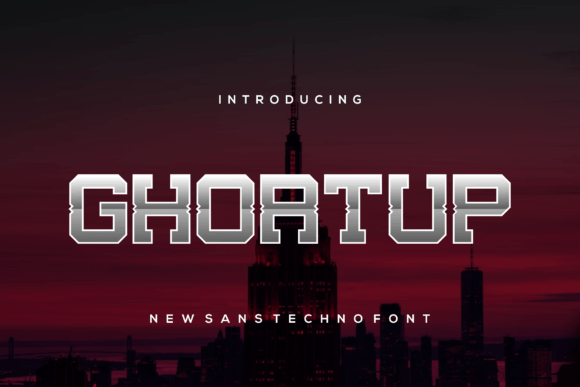
Have you ever stared at a blank canvas, trying to come up with the perfect font to bring your design to life? That’s exactly what happened to us when we created the Ghortup Font. We wanted a font that was both bold and authentic, something that would make our designs stand out in a crowded space.
After months of perfecting the Ghortup Font, we’re excited to share it with you. This slab serif font is perfect for any branding project, from logos to t-shirt printing, and even esports graphics. Its versatility and unique style make it a valuable addition to any designer’s toolkit.
Whether you’re a seasoned pro or just starting out, the Ghortup Font is sure to inspire your next design project. With its wide range of applications, you’ll be able to take your designs to the next level and make a lasting impression on your audience.
Ghortup Font Key Features
- Font Family: Ghortup Font is a sans-serif font family, designed to provide a clean and modern look for digital and print media.
- Character Set: The font includes a comprehensive character set, covering Latin, Cyrillic, and Greek alphabets, as well as various punctuation and symbol glyphs.
- Unique Characteristics: Ghortup Font features a distinctive geometric shape and subtle rounded edges, giving it a friendly and approachable feel.
- Font Weight and Style: The font family includes multiple weights, from Light to Bold, and various styles, such as Regular, Italic, and Oblique, offering flexibility for designers to achieve the desired visual effect.
Ghortup Font Review
Ghortup Font is an interesting choice for any design project. There are a few things that work well:
- ✨ Unique aesthetic: Ghortup Font offers a distinct and eye-catching design that can help your project stand out.
- ✨ Versatile: This font can be used in a variety of contexts, from digital displays to printed materials, making it a versatile choice.
- ✨ Customizable: The font allows for some level of customization, which can be beneficial for designers who want to fine-tune their project.
However, there are also some limitations:
- ⚠️ Limited compatibility: Ghortup Font may not be compatible with all operating systems or devices, which could lead to display issues.
- ⚠️ Limited character set: The font’s character set may not be comprehensive, which could cause problems if you need to use specific characters.
- ⚠️ Limited support: The font may not have comprehensive documentation or support, which could make it difficult to troubleshoot issues.
Overall, Ghortup Font is a decent choice for designers who are looking for a unique aesthetic. However, its limitations may make it less suitable for more complex projects or projects that require high levels of compatibility and support.
Common use cases for Ghortup Font include:
1. Creating modern and sleek designs.
2. Adding a touch of sophistication to business presentations.
3. Designing eye-catching marketing materials.
4. Experimenting with unique typography in creative projects.
Remember to pair Ghortup Font with contrasting colors and clean layouts to maximize its impact.